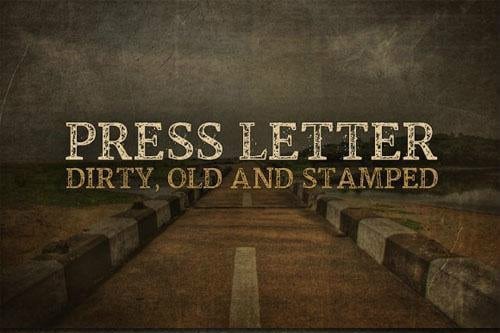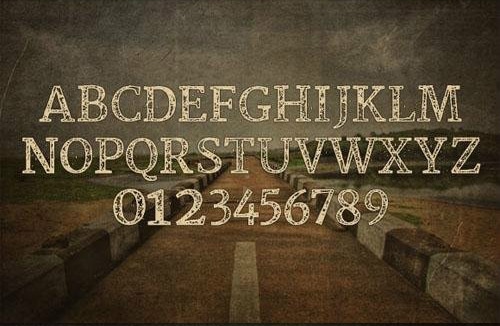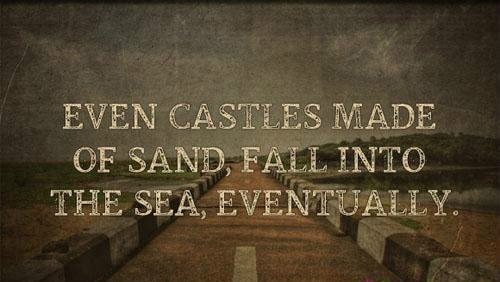
Press Letter is a grungy, dirty letter press style font. Use it to give titles a dirty stamped look and feel.
- Designer: Nathan Brown
Press Letter is a grungy, dirty letter press style font. Use it to give titles a dirty stamped look and feel.